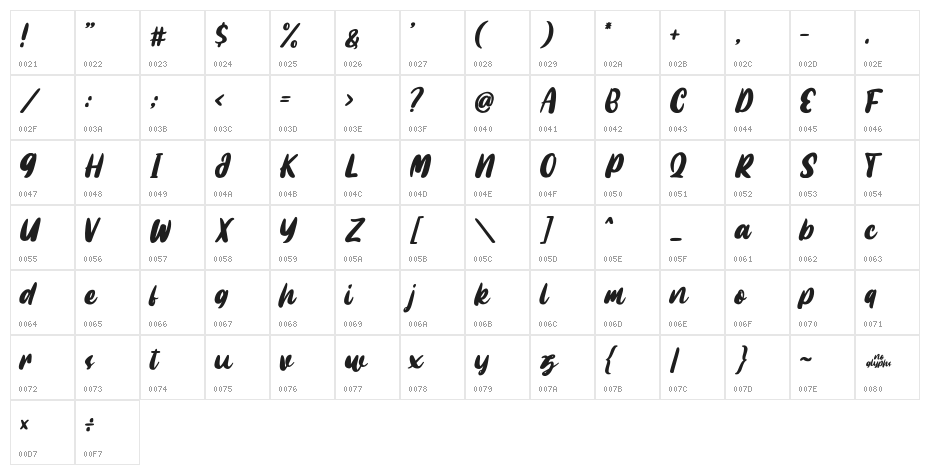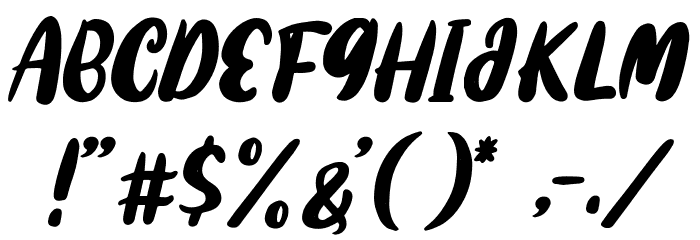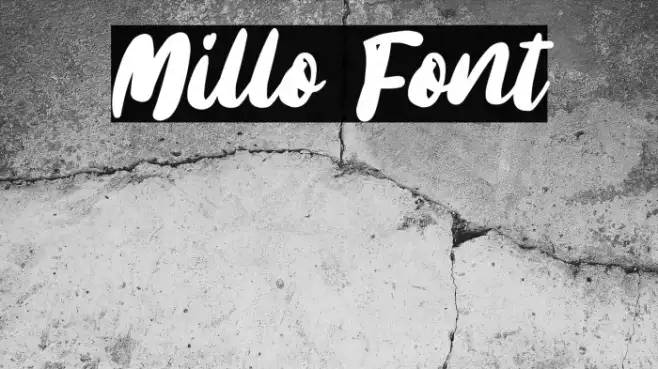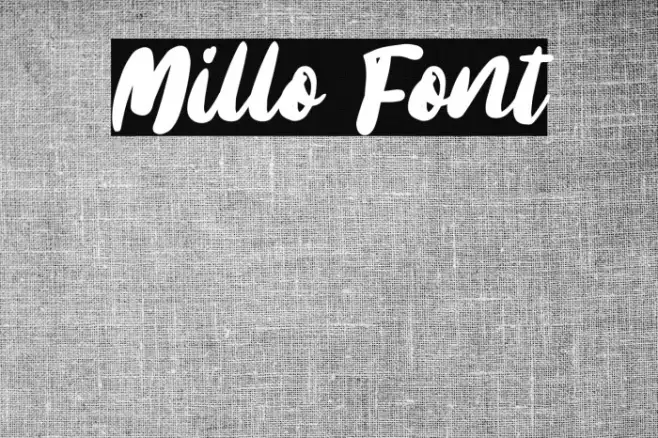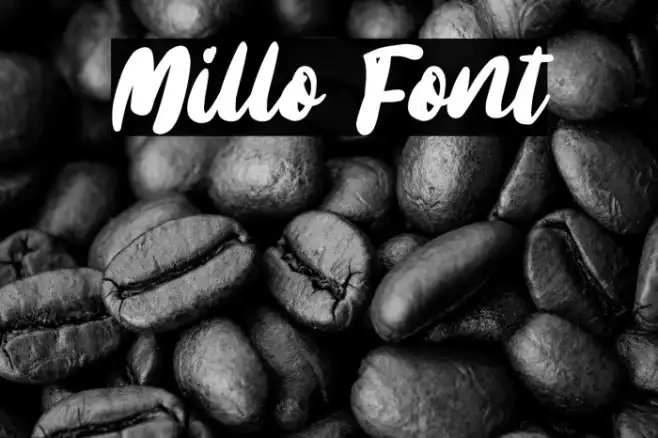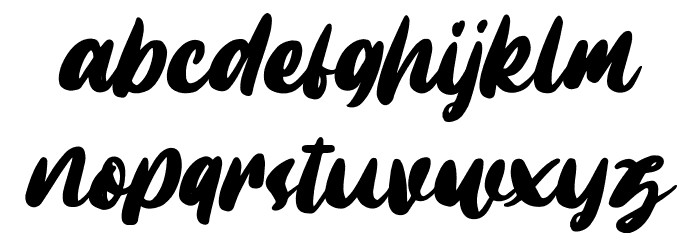
Millo Font
Millo Description
This font features a bold, expressive style with a handwritten appearance. The characters are fluid and dynamic, with a slight slant that adds to its energetic feel. The strokes are thick and consistent, providing a strong visual impact. The uppercase and lowercase letters maintain a cohesive look, while the numerals and special characters blend seamlessly into the overall design. The font's playful yet sophisticated nature makes it versatile for various creative projects.
| Proposed Projects | Ideal for branding, packaging, posters, and social media graphics where a bold, personal touch is desired. |